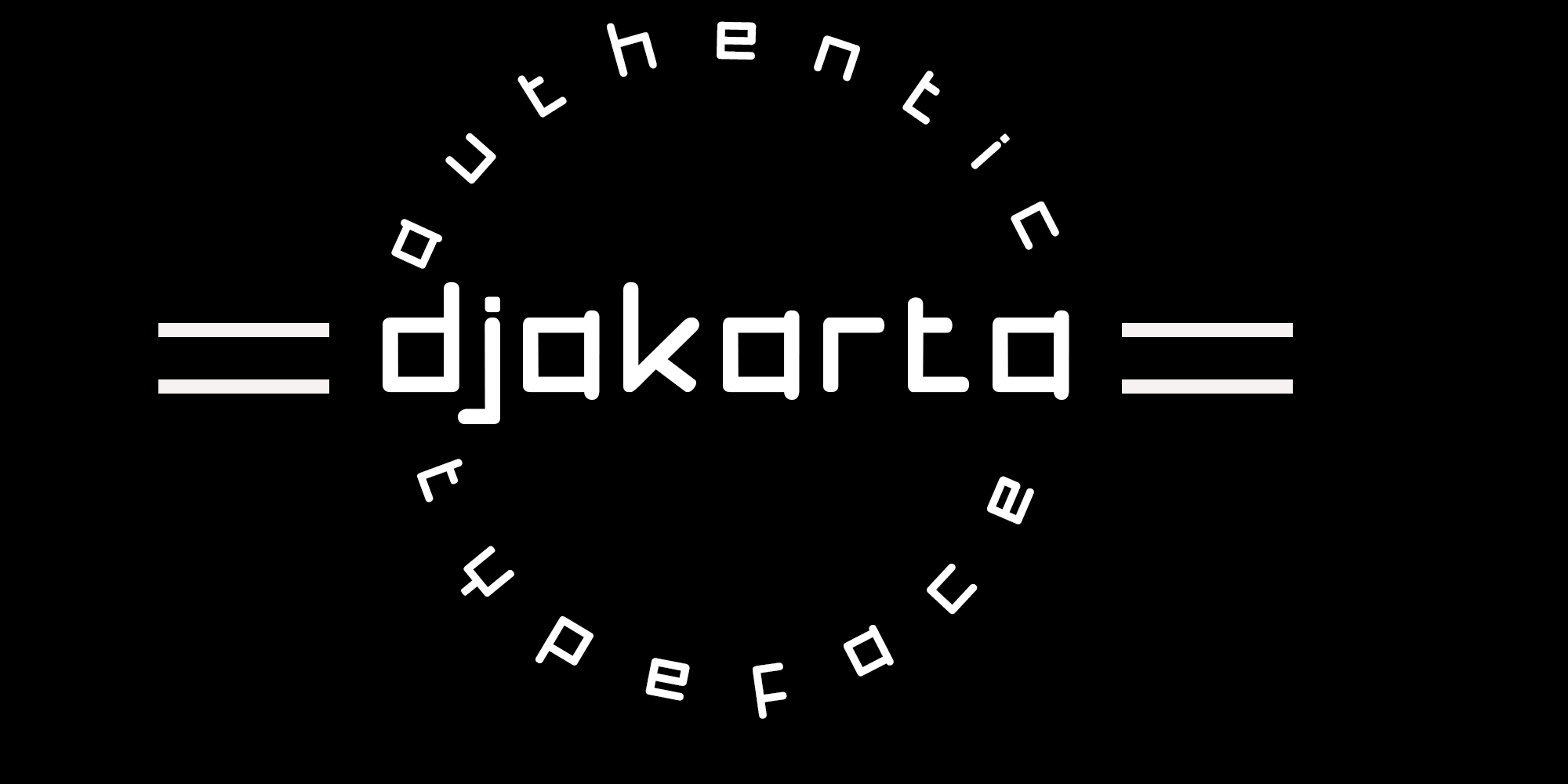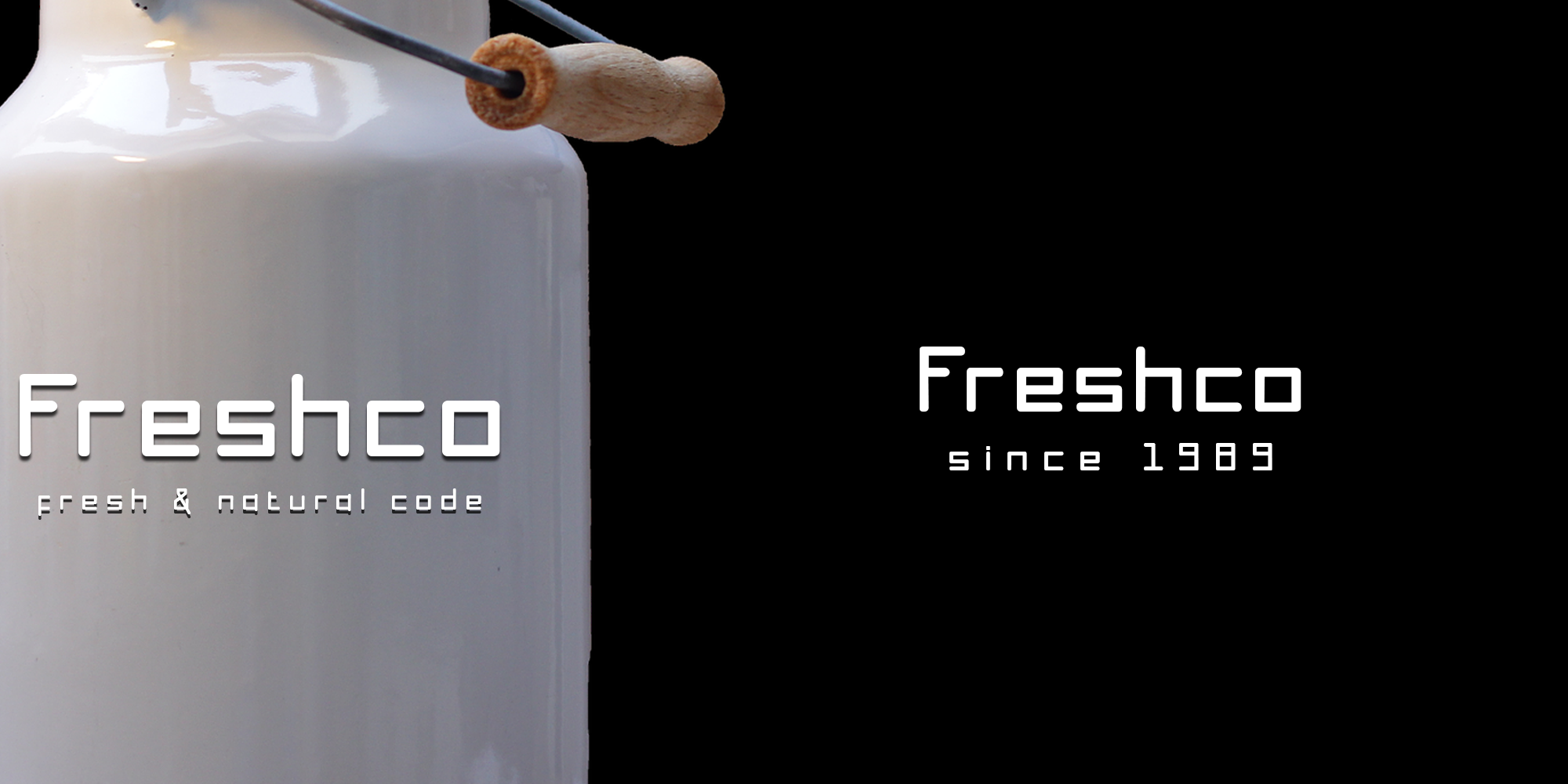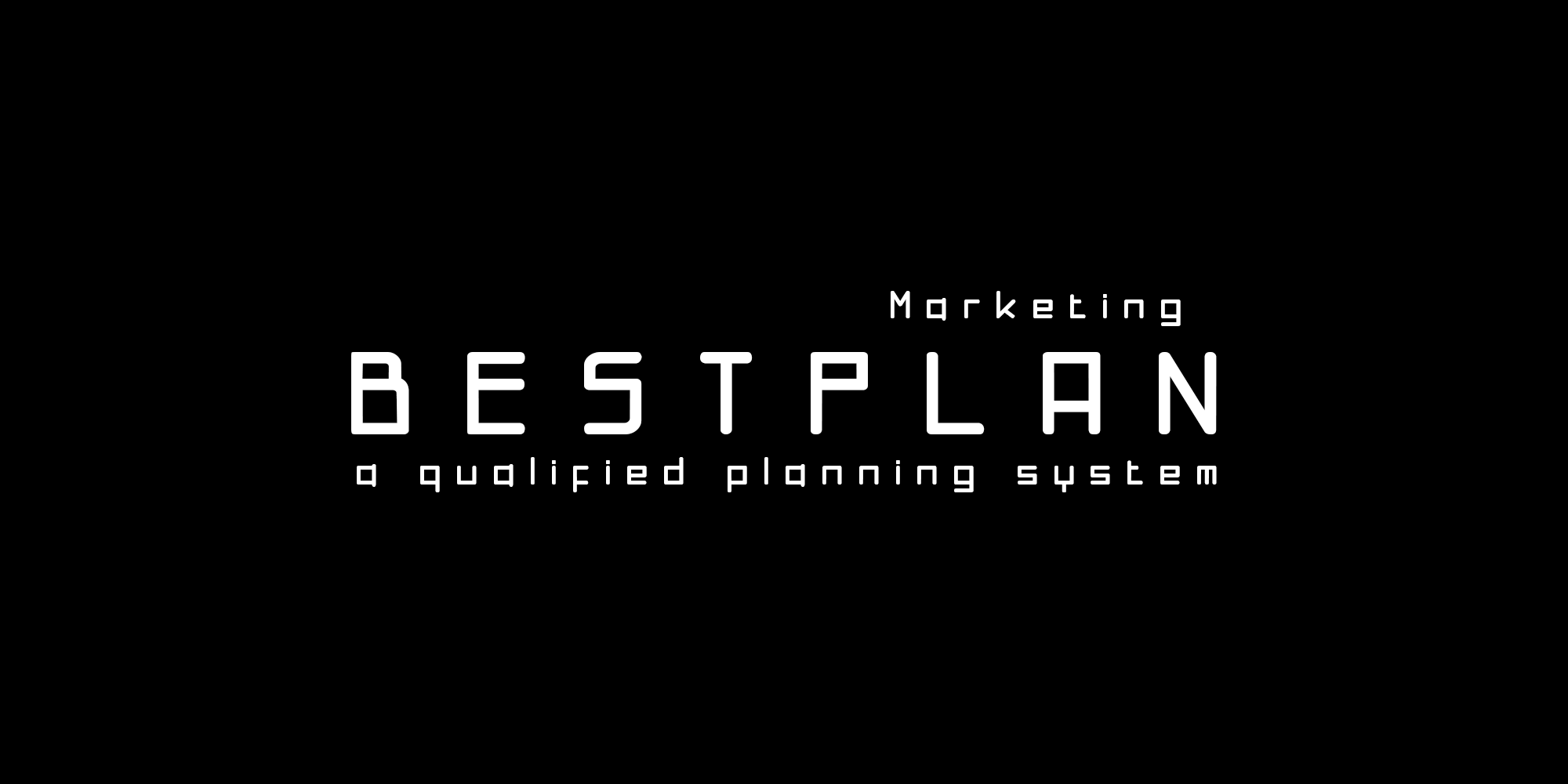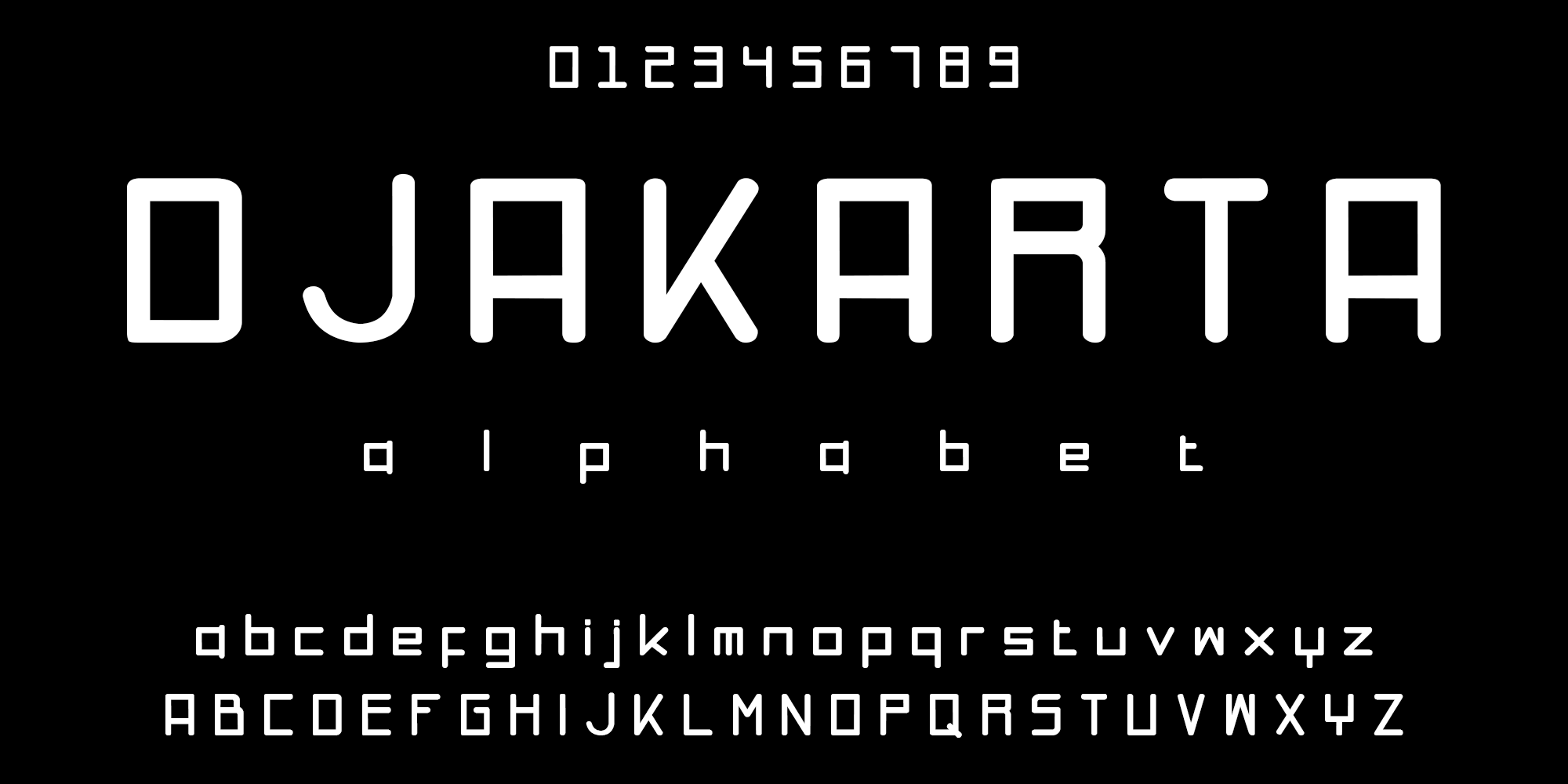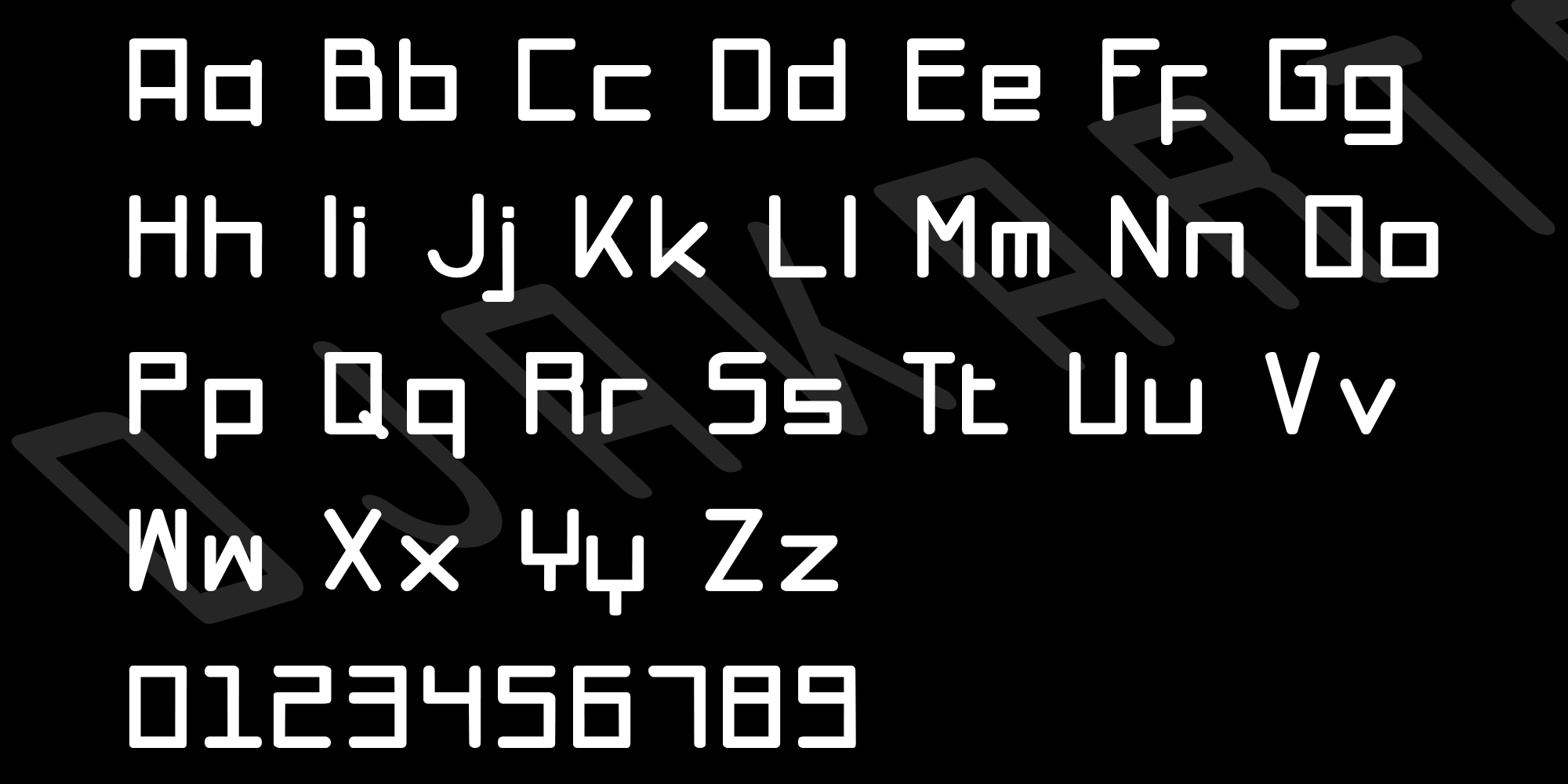
Djakarta Font
Djakarta Display Font
This is a robotic and squared lettered display font. This adaptable font will look great on a variety of design ideas. It will add a fun and friendly touch to each of your projects!